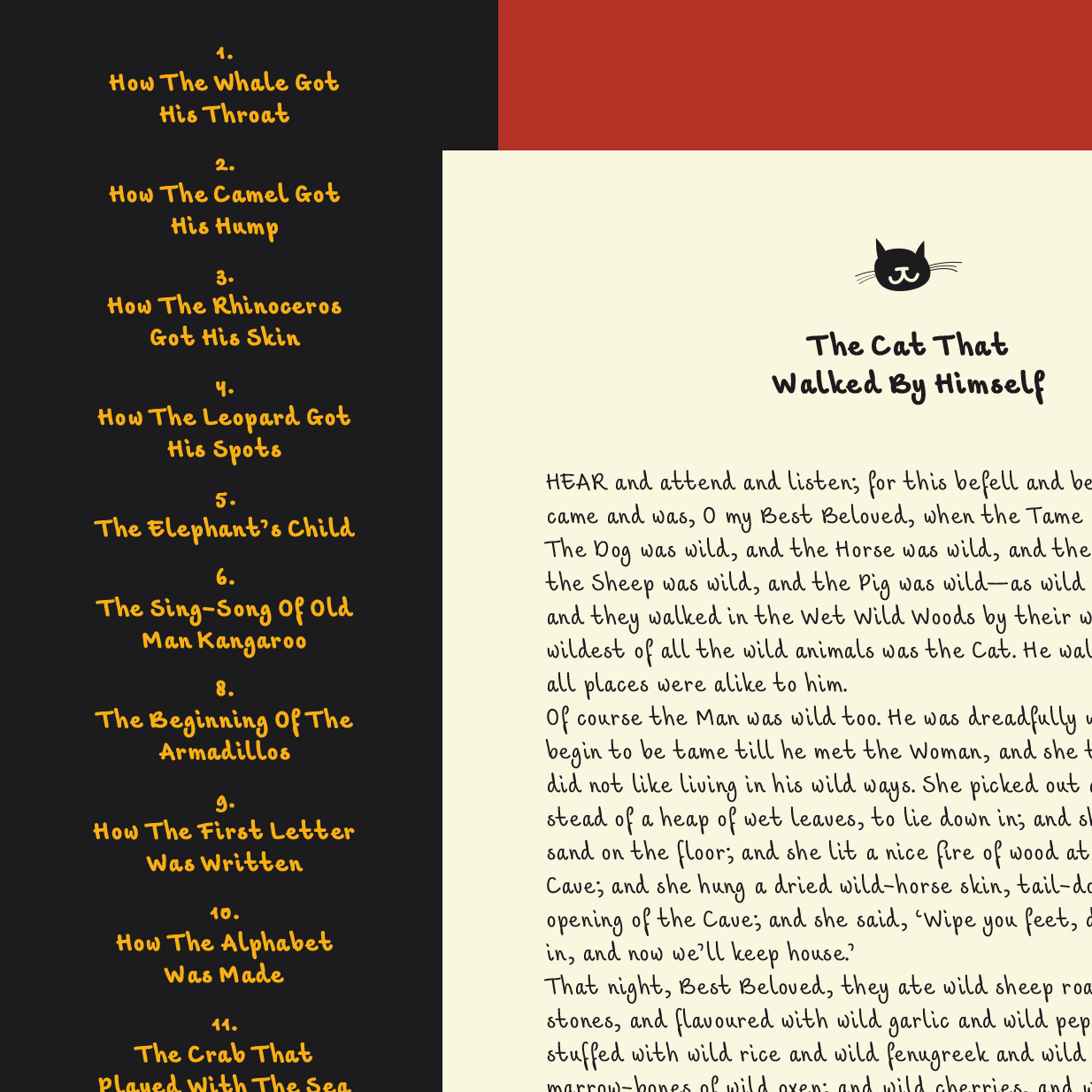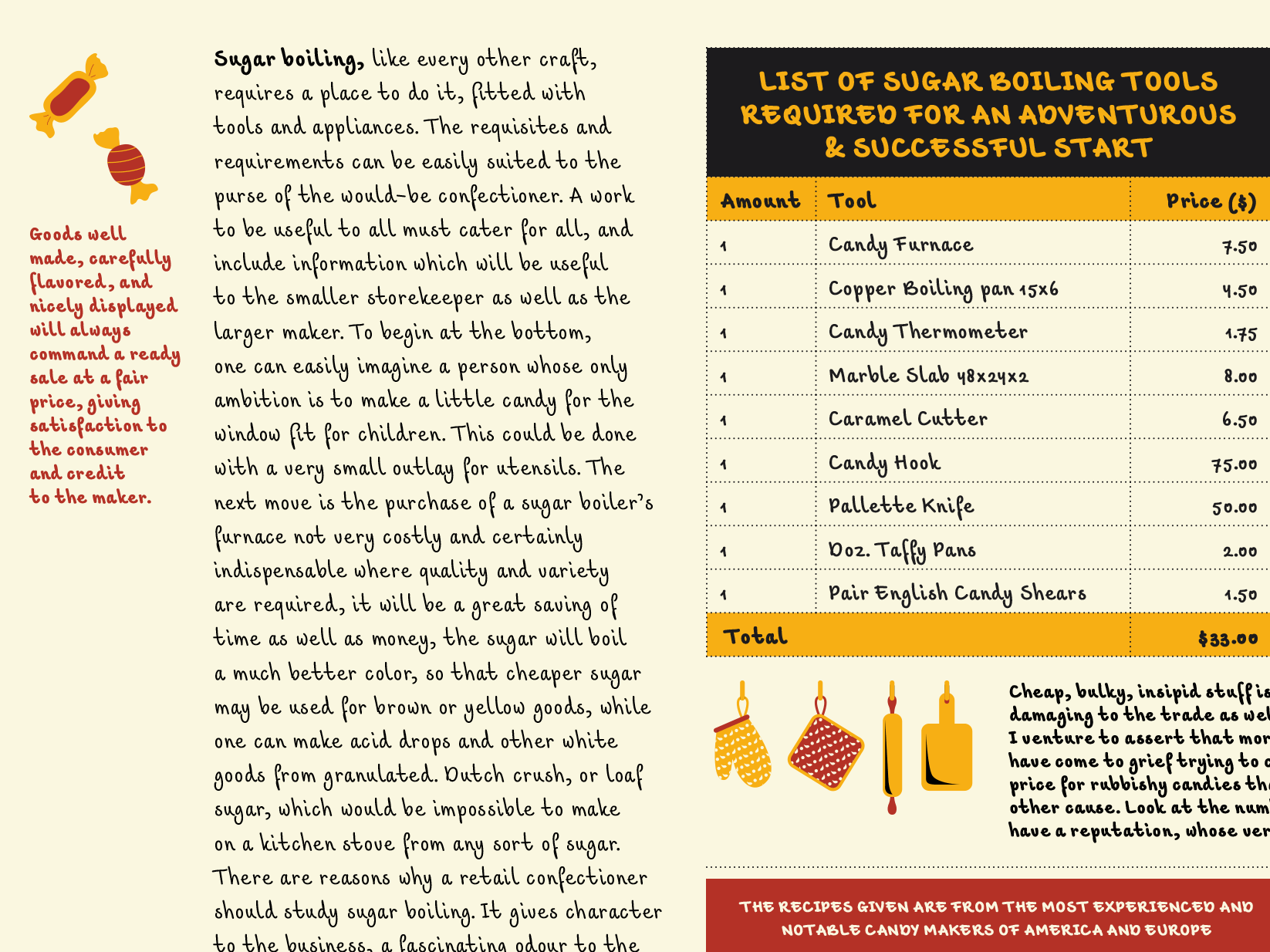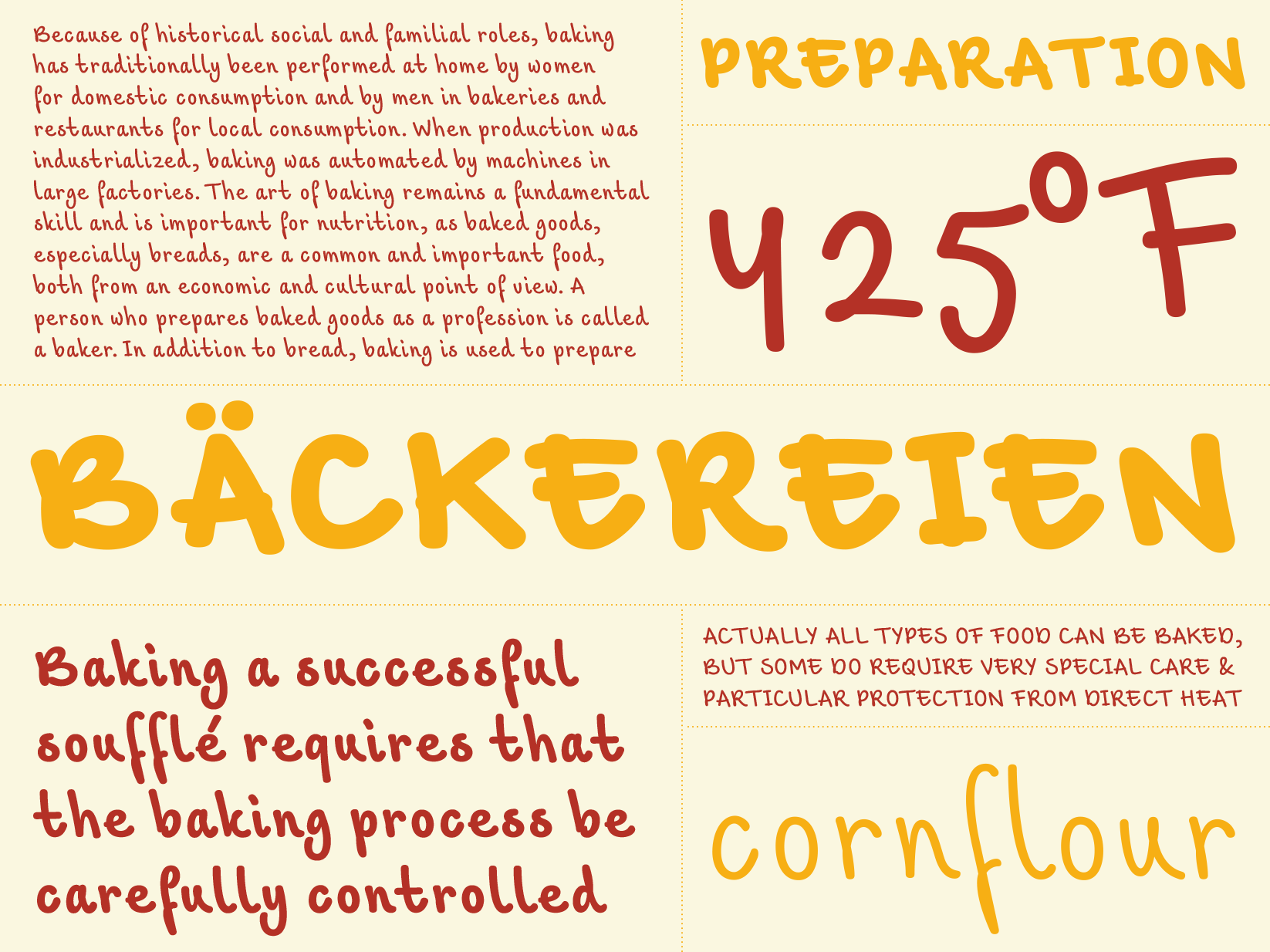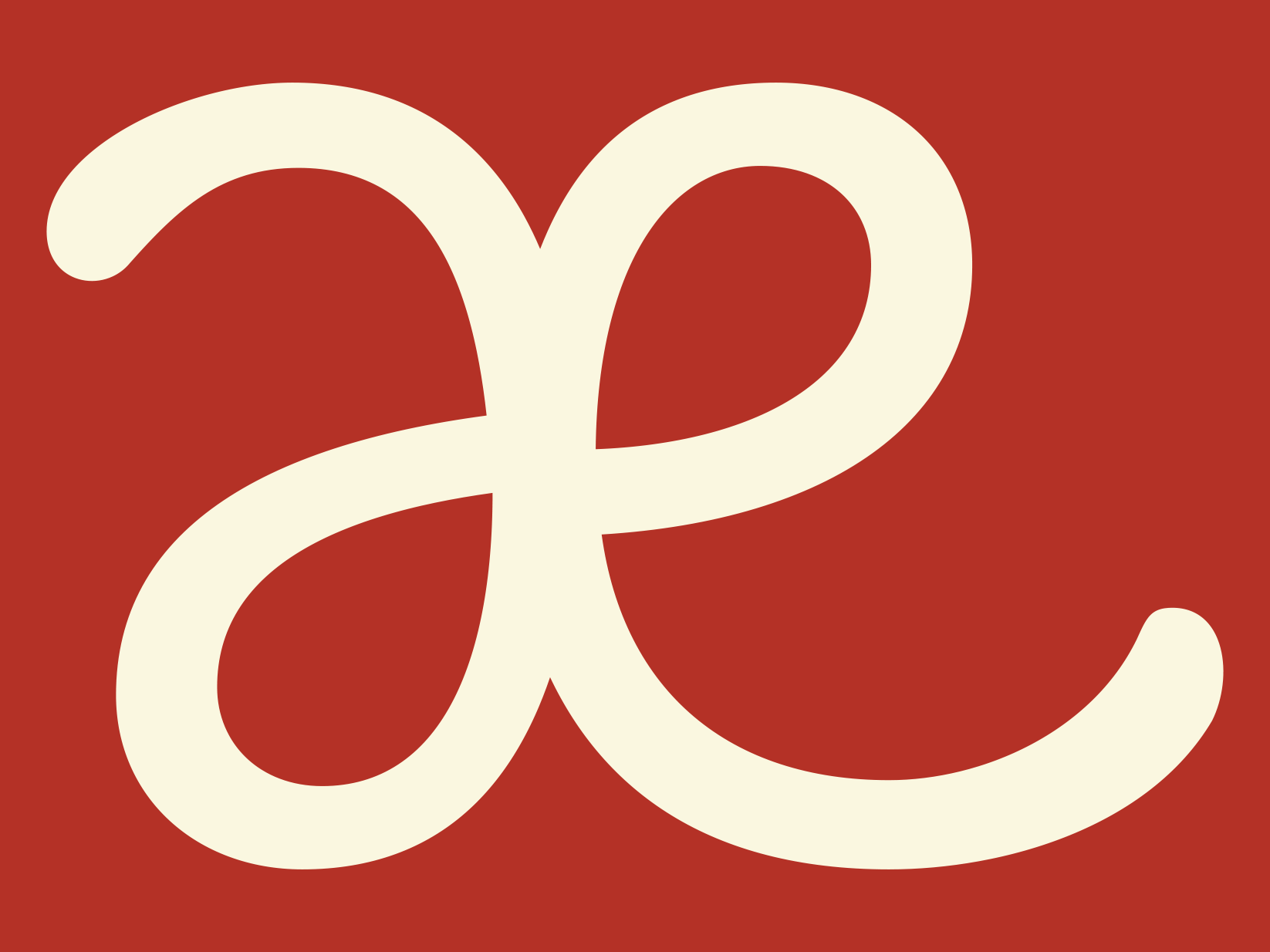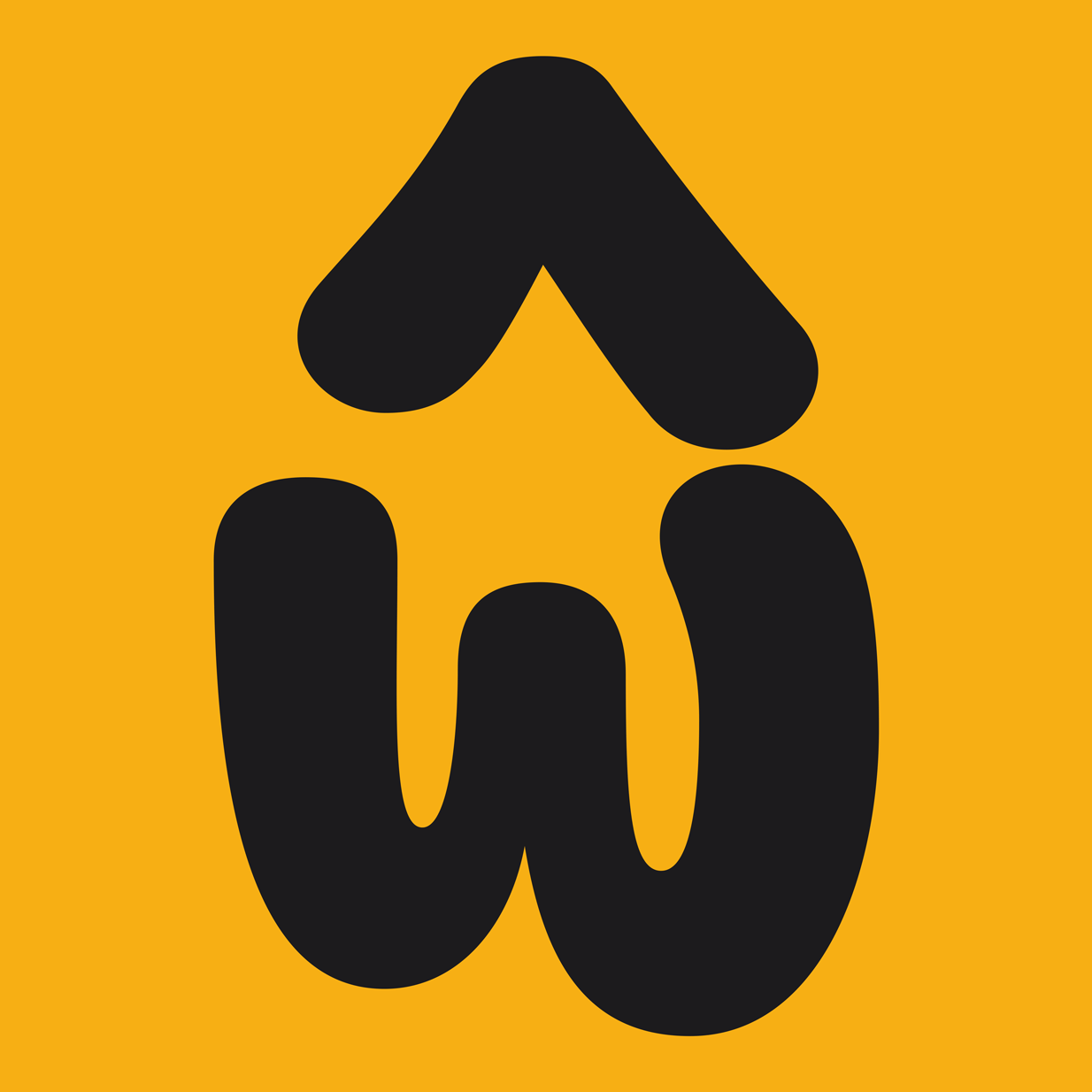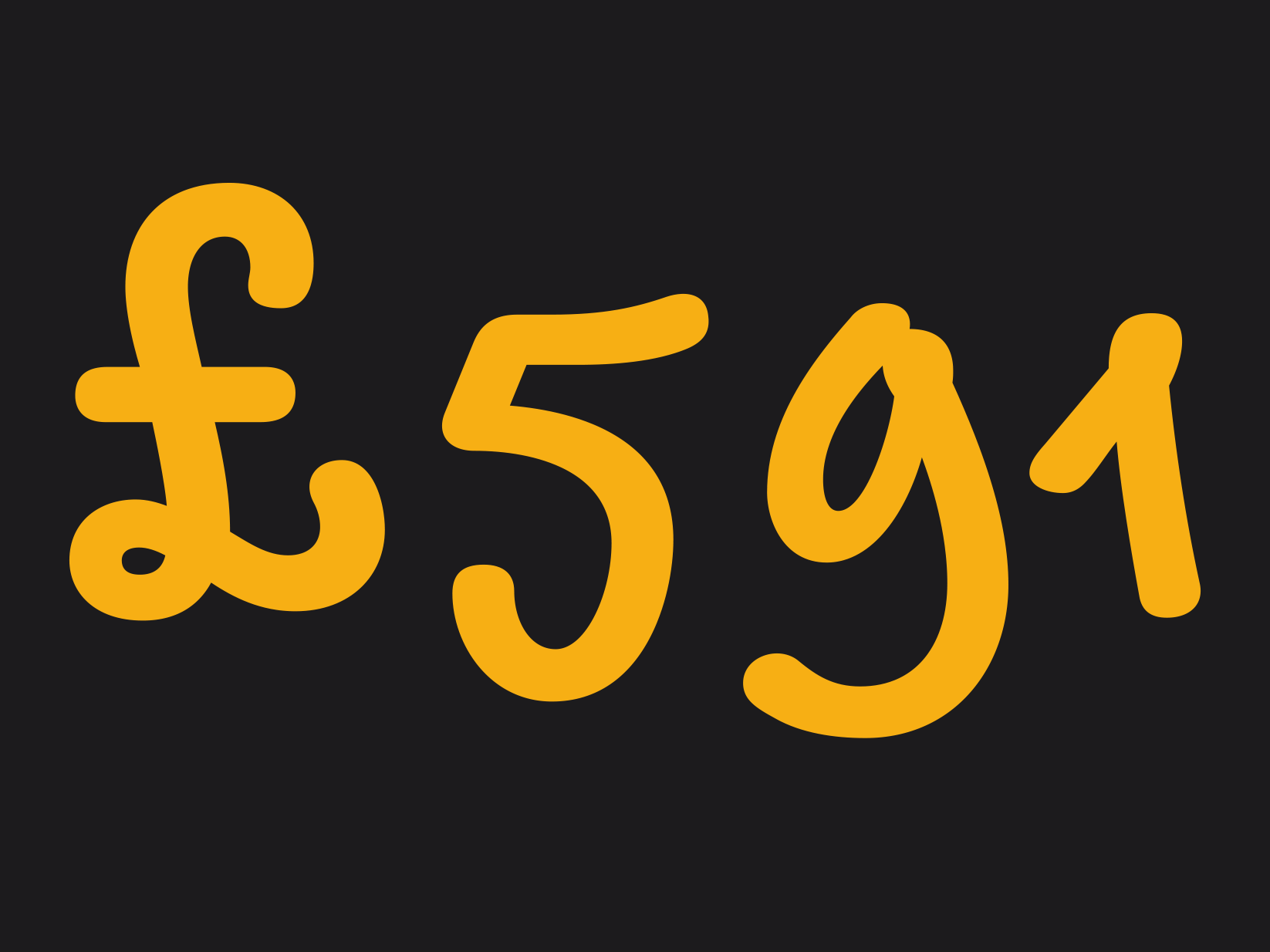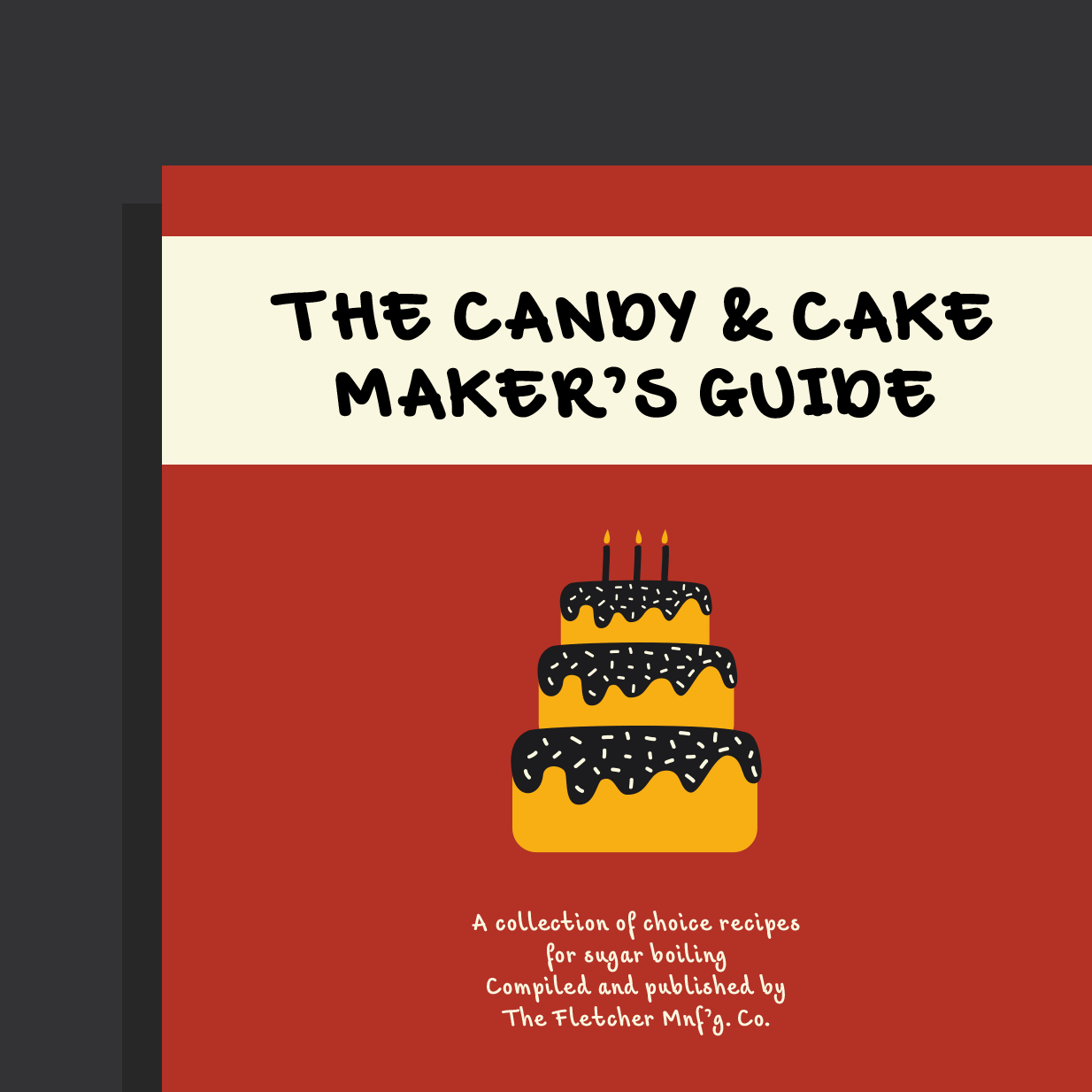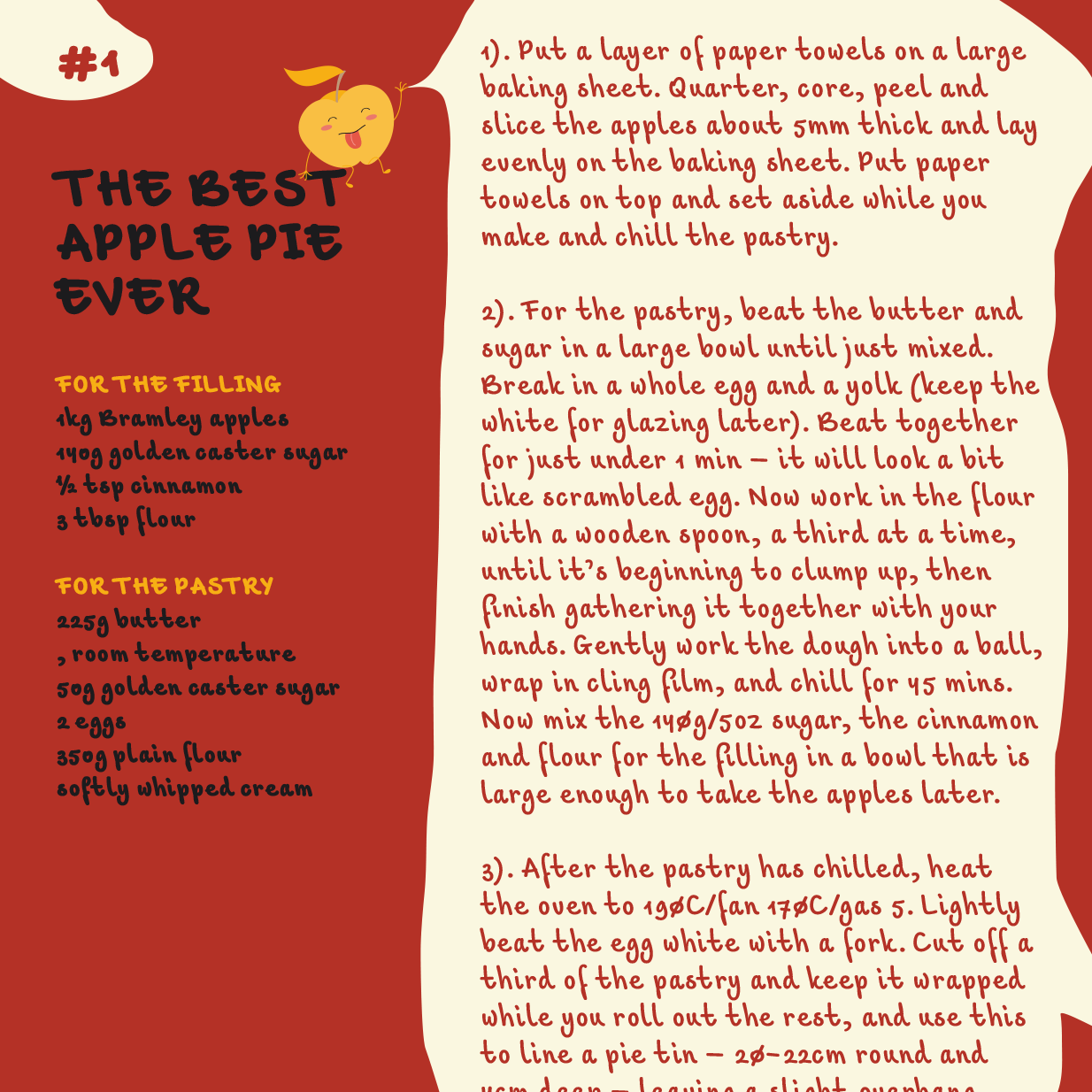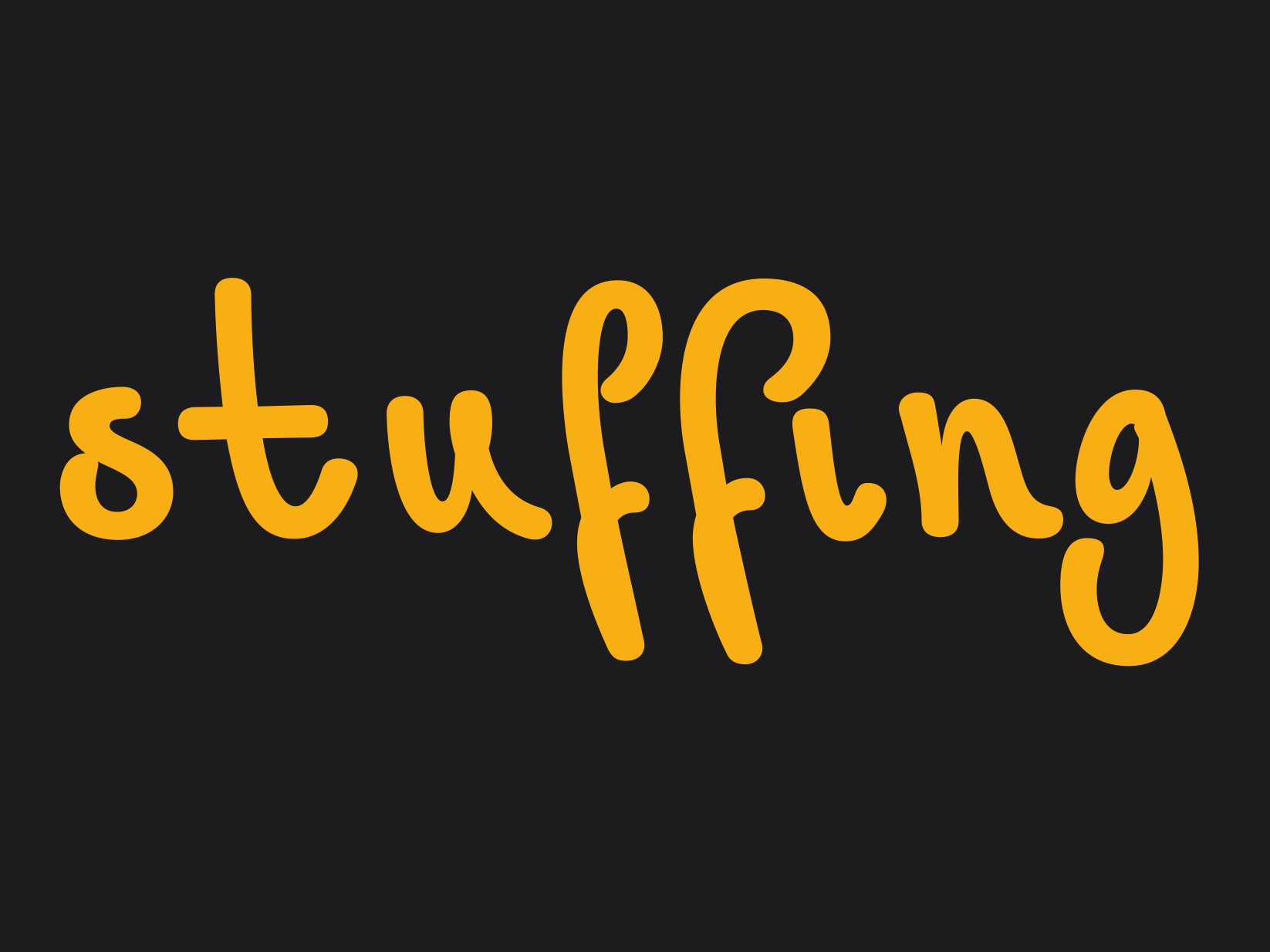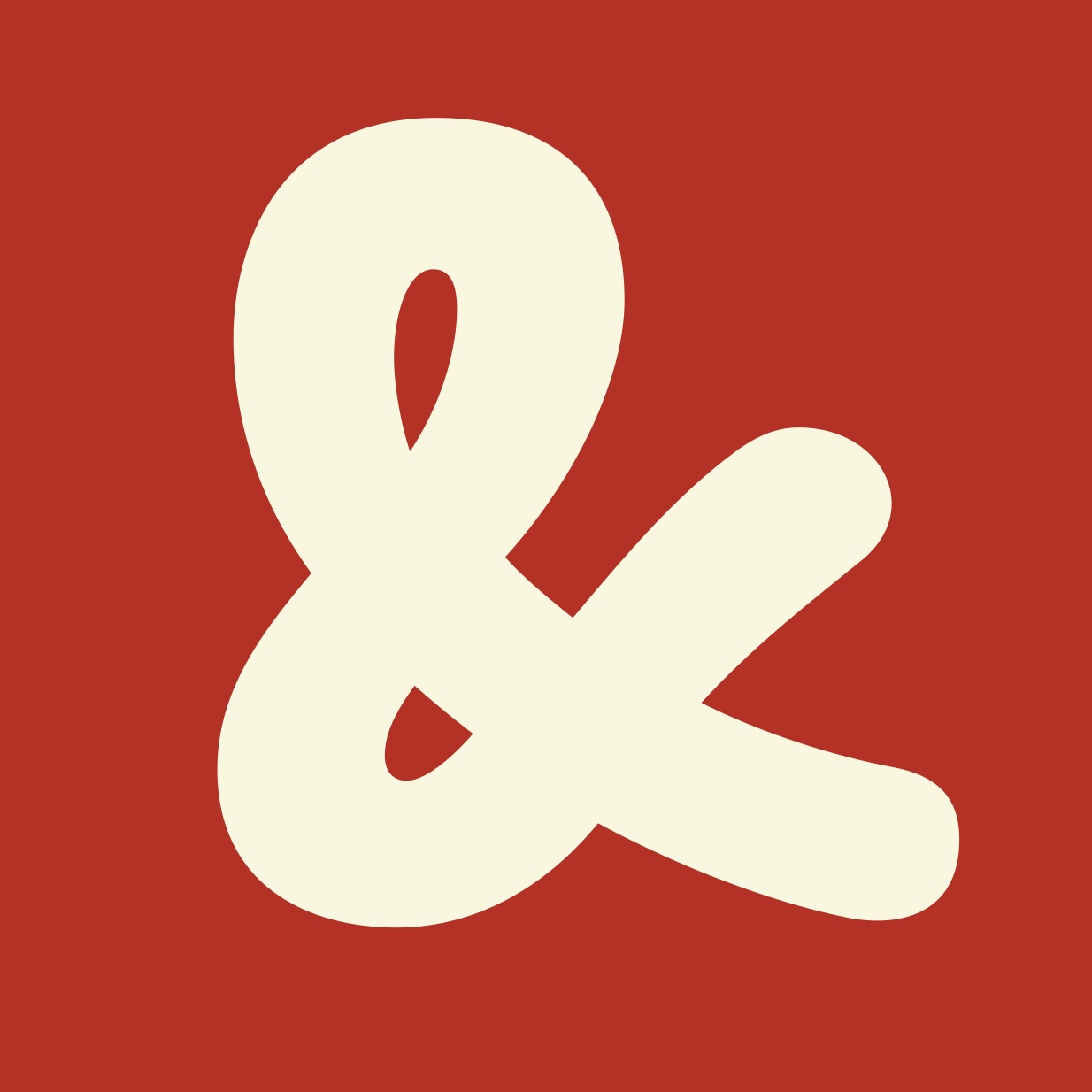
Aniek
Aniek is an informal, friendly script inspired by the handwriting of a former girlfriend. The monolinear strokes and rounded terminals echo the characteristics of writing with a soft felt-tip pen. While most other script typefaces slant to the right, Aniek has a slight slant to the left which gives it its unique casual charm.
Aniek captures the spontaneity of handwriting but doesn’t try to imitate the irregularity and imperfection of the human hand. The characters, for example, are not connected, proportions were harmonised and the rhythm and spacing made more even. This makes Aniek suitable for even longer paragraphs of text and small sizes.
Aniek is available in seven weights, each with Latin-Extended characters-set covering the majority of European languages.